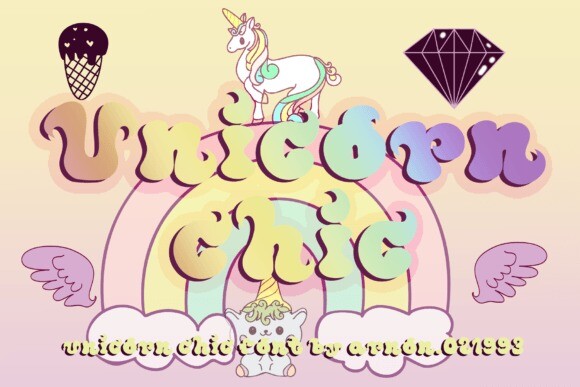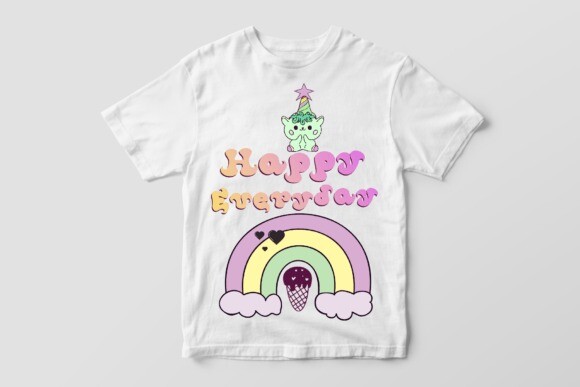
Unicorn Chic Font
Unicorn Chic Font is a playful and fun display font. This cute font is perfect for kids’ branding, clothing, wedding, greeting cards, logos, quotes, posters, shirts, mugs, and more!